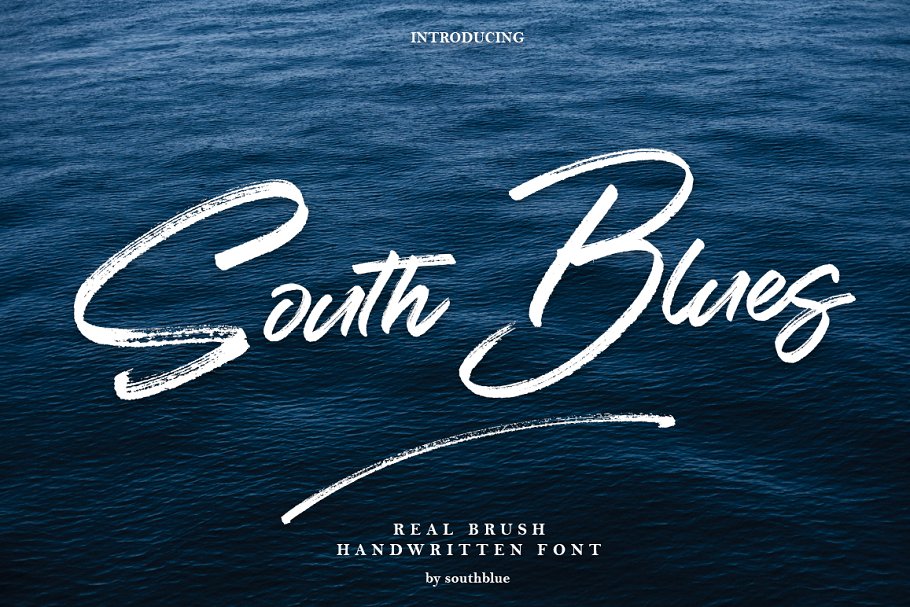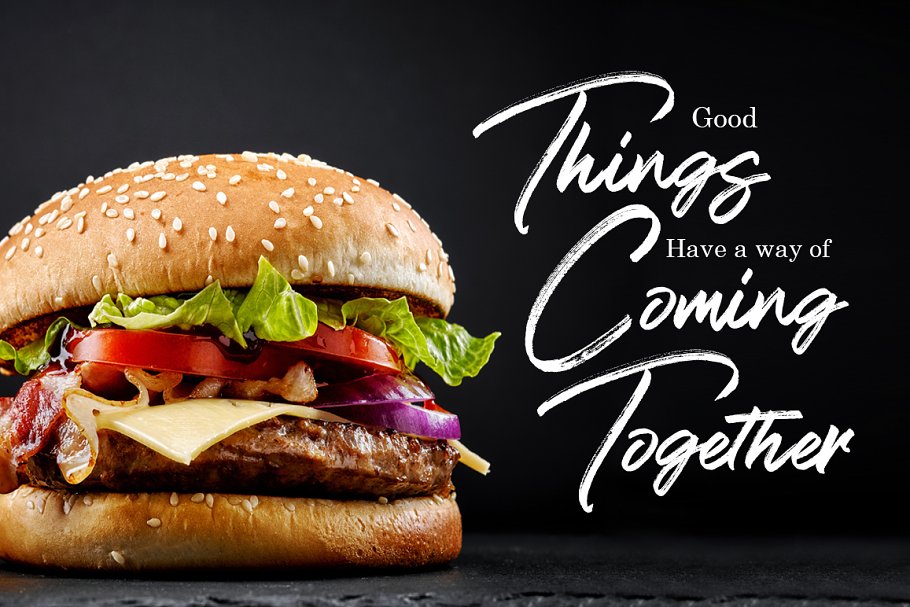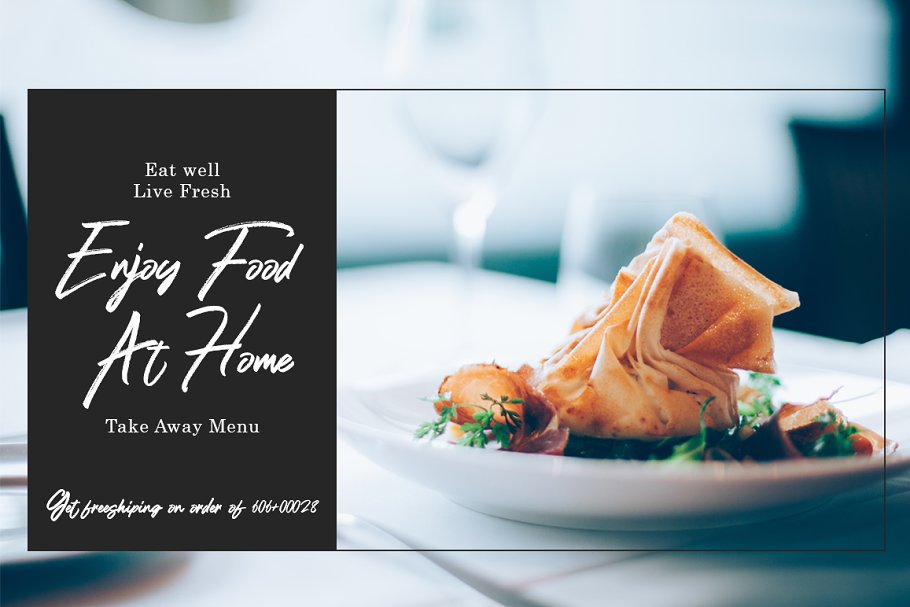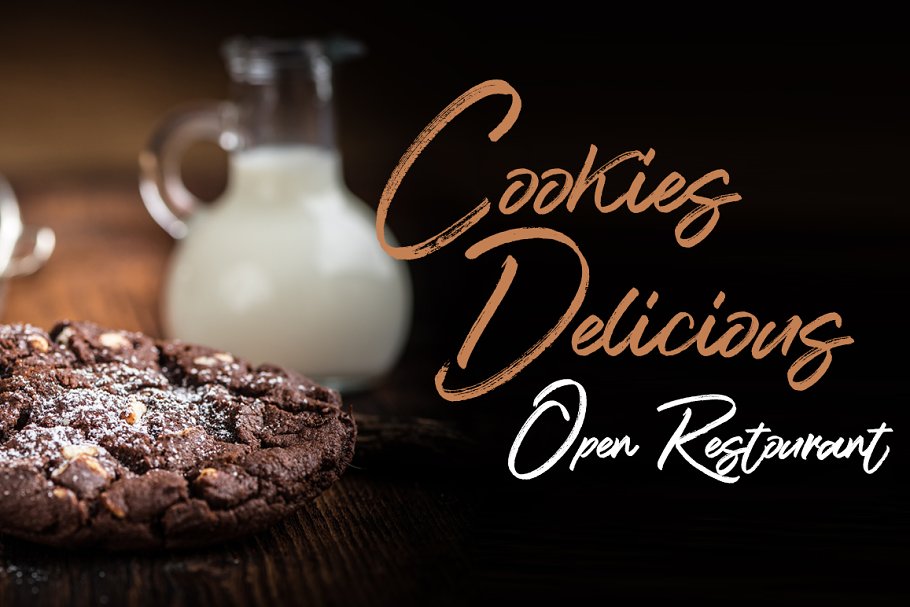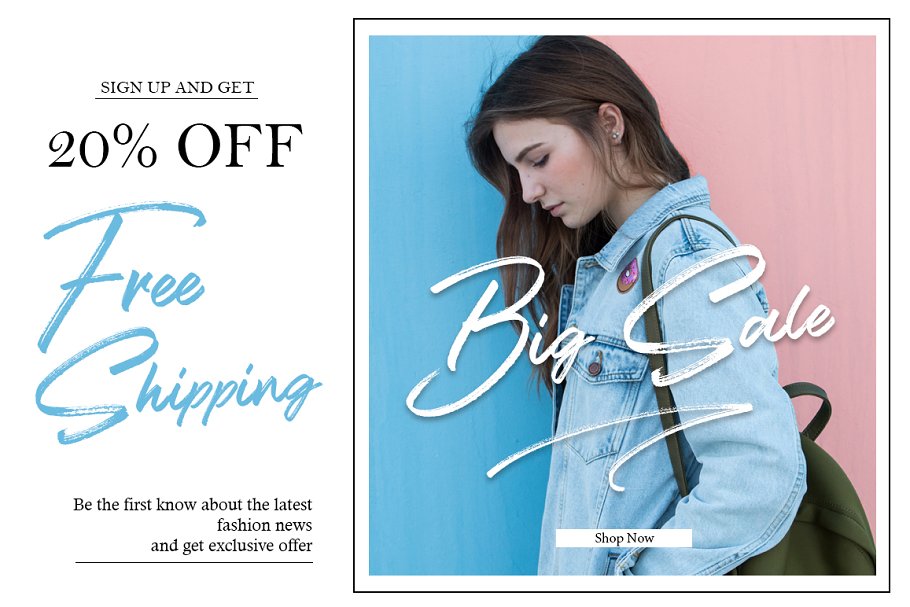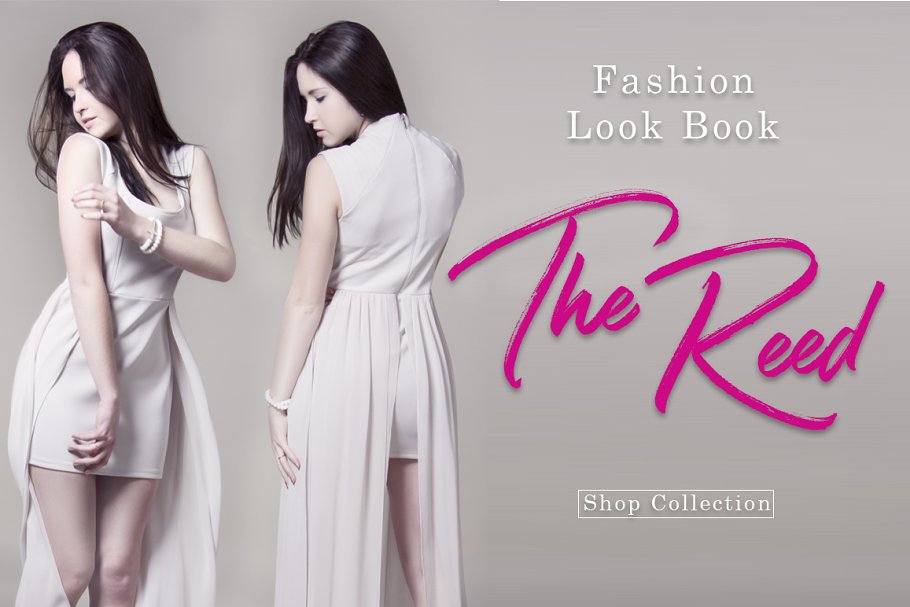
Introducing South Blues ! A cool, classy, and versatile brush font with a loose flow, South Blues combines attractive curves with a fresh urban edge; delivering a stylish script which is guaranteed to add an eye-catching appeal to your logo designs, brand imagery, handwritten quotes, product packaging, merchandise & social media posts, Your download will receive 2 files;1
South Blues • A handmade brush font containing upper & lowercase characters, numerals and a large range of punctuation, 2, South Blues Extra • A additional line handmade to make your design look attractiveSouth Blues Features :Uppercase & Lowercase , Symbols Support Punctuation & Number PUA Unicode Range, Standard Ligatures, Discretionary Ligatures